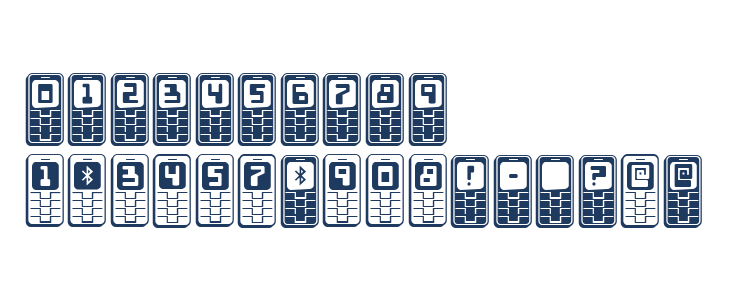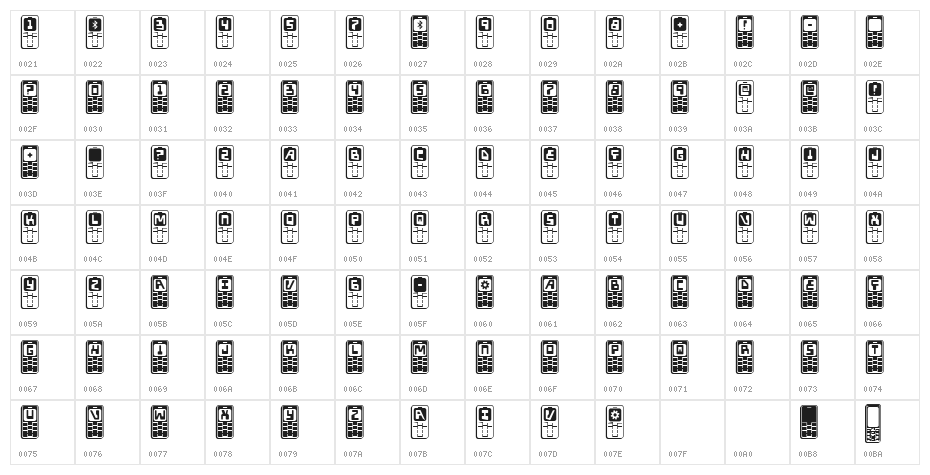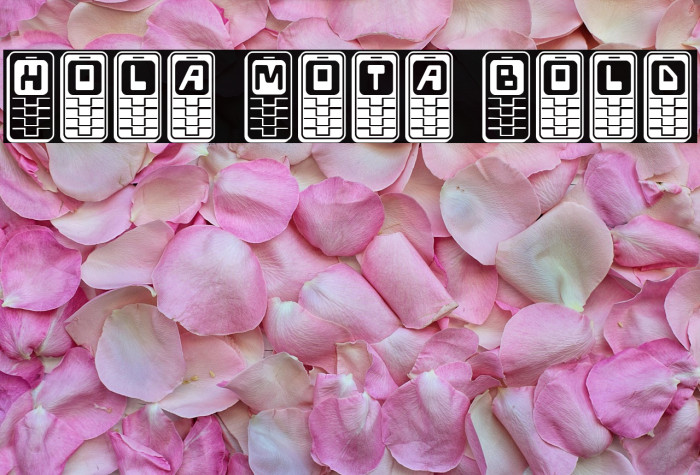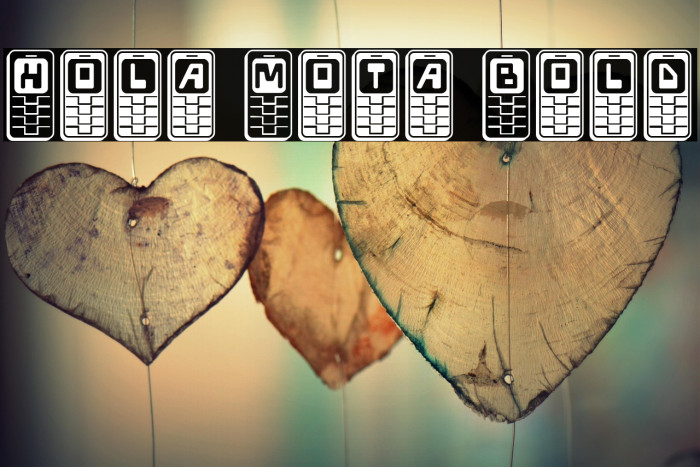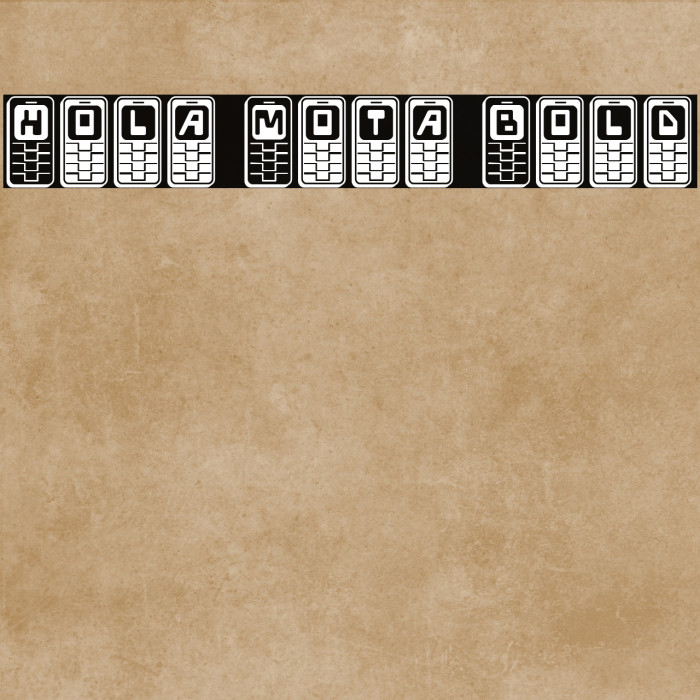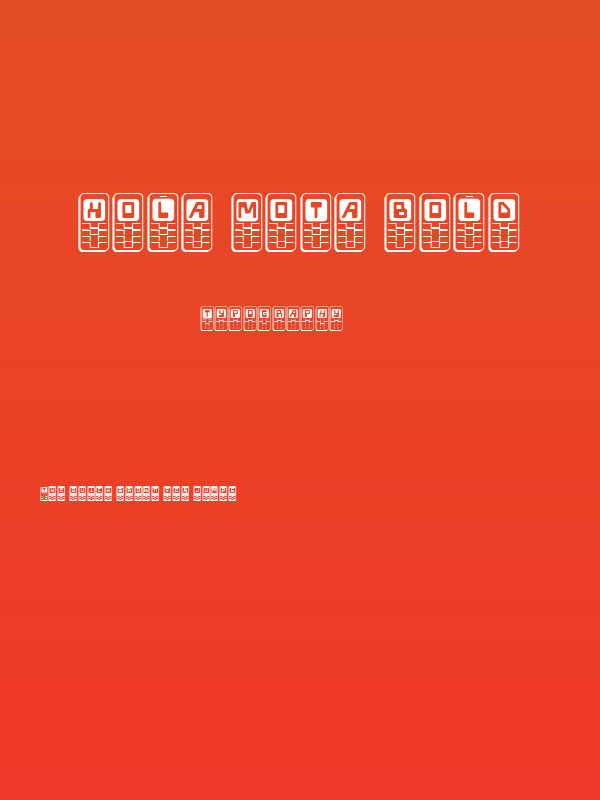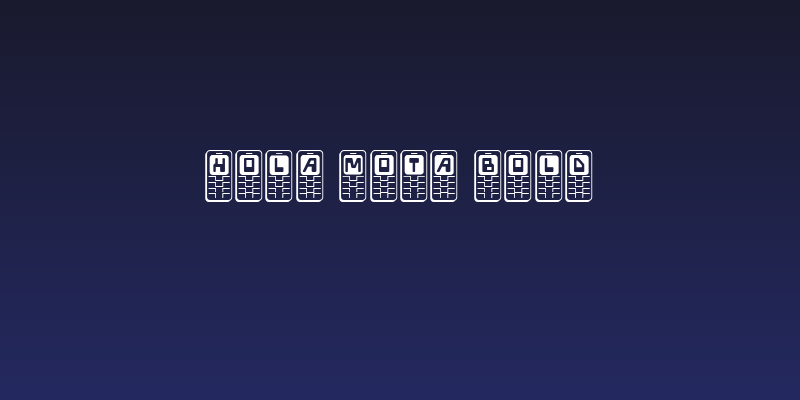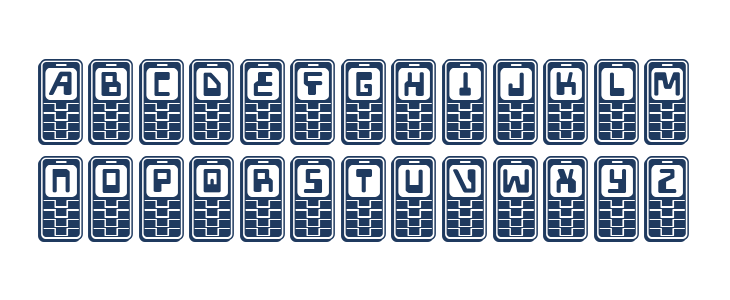
Hola Mota Bold Font
Hola Mota Bold Description
This font features a bold, geometric design with a distinct digital aesthetic. Each character is enclosed within a rectangular shape, reminiscent of a retro digital display or keypad. The lines are thick and uniform, providing a strong visual impact. The characters are evenly spaced, ensuring clarity and readability. The style is modern and tech-inspired, making it suitable for projects that require a futuristic or digital theme. The consistent stroke weight across all characters adds to its bold appearance, while the enclosed design gives it a unique, structured look.
| Proposed Projects | Ideal for digital displays, tech-themed posters, video game graphics, and futuristic branding. |